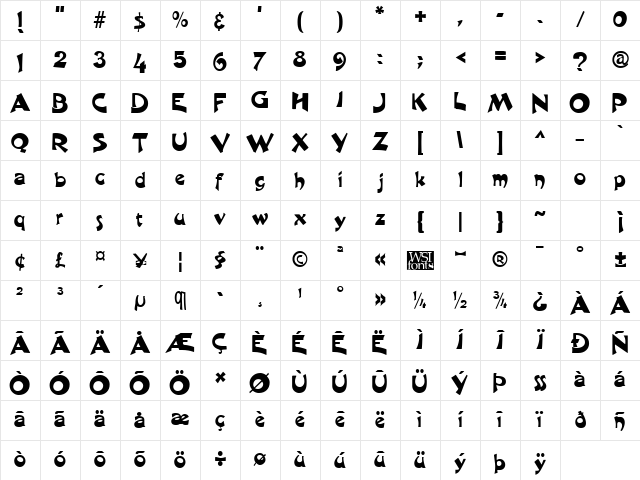
Harquil Regular
Harquil Family
Design Context for Harquil
Harquil is a composed and adaptable typeface that performs quietly and consistently across a wide range of design contexts.
Pro Tip: Use Harquil in both headline and body roles to test its range before committing to a single application.